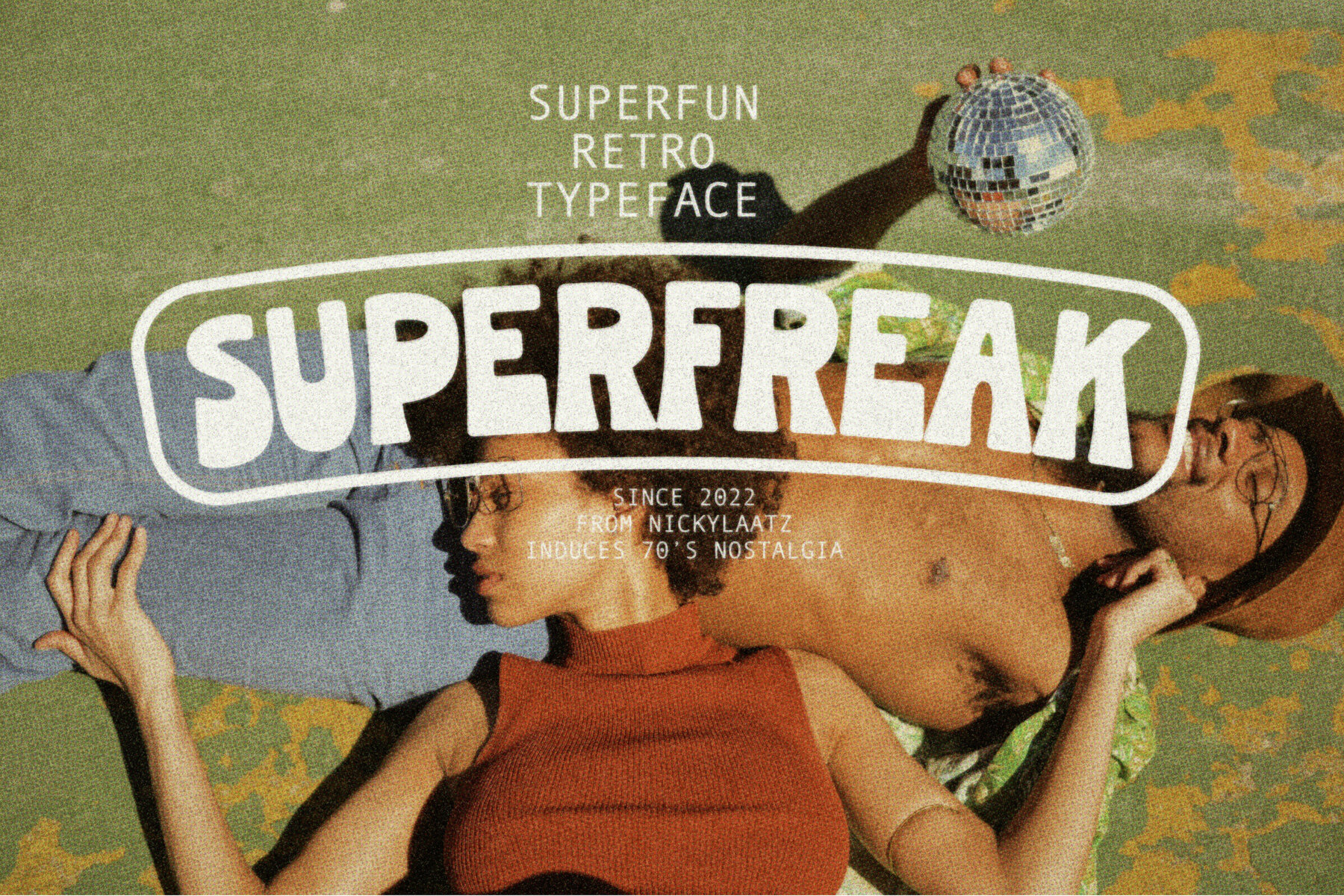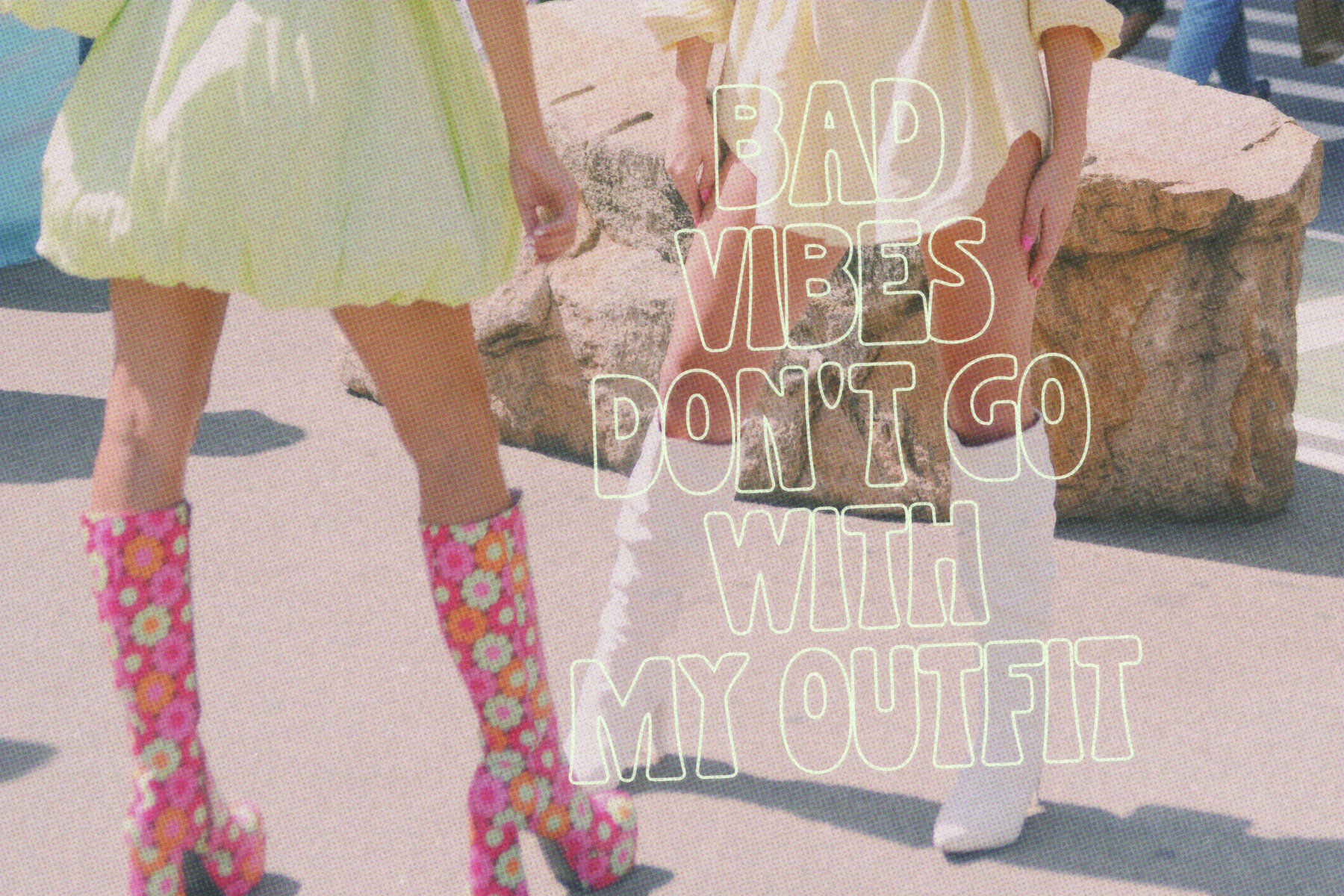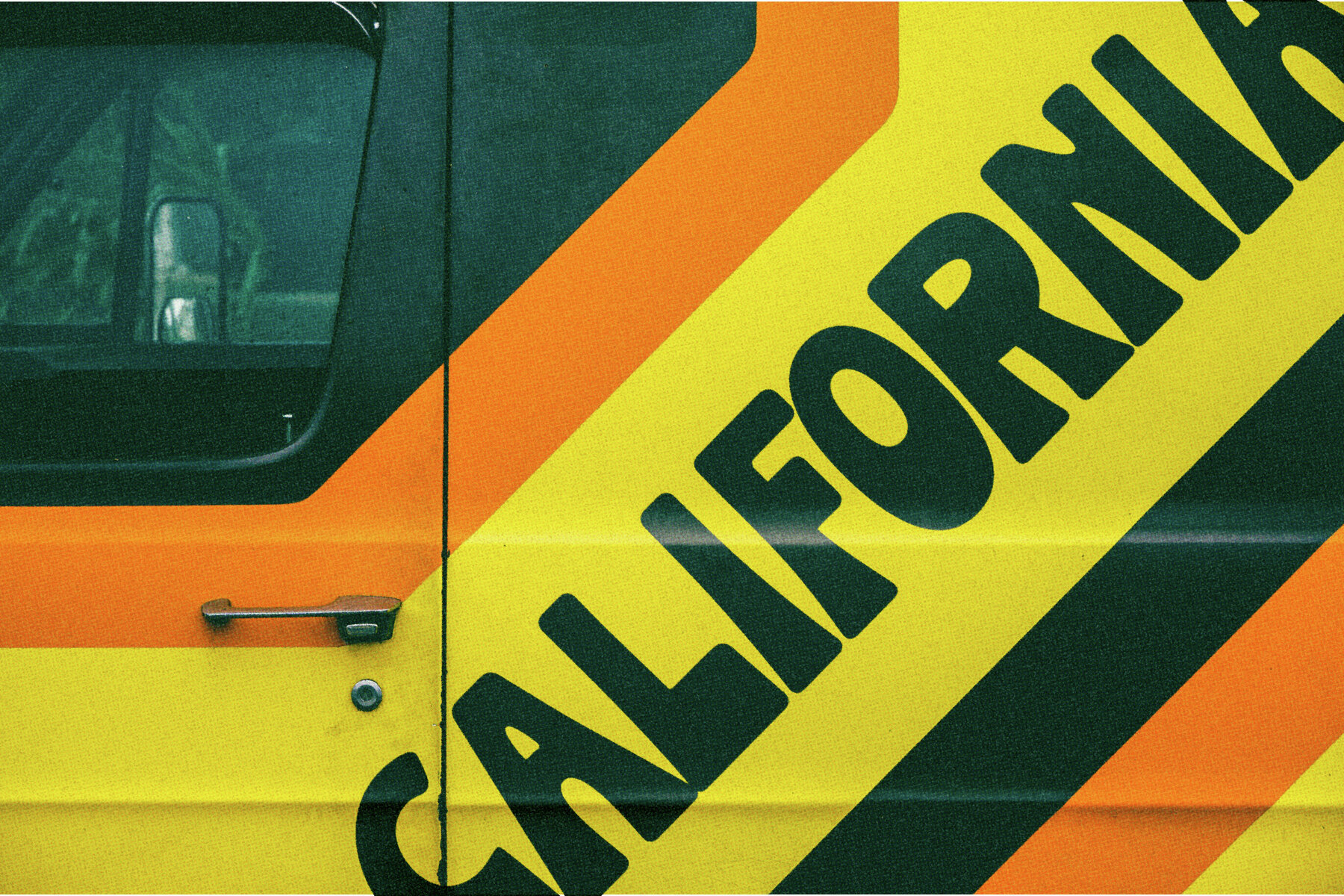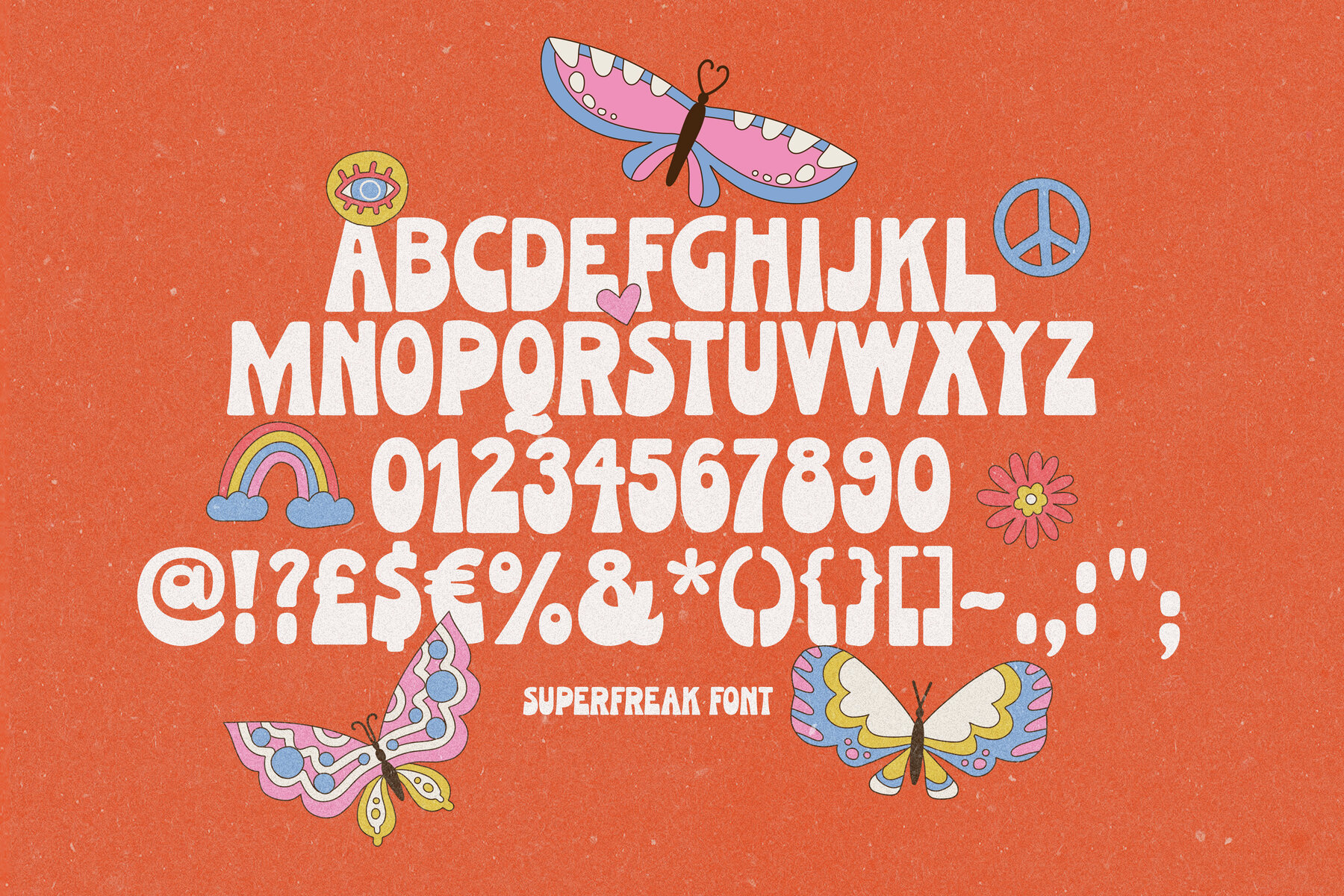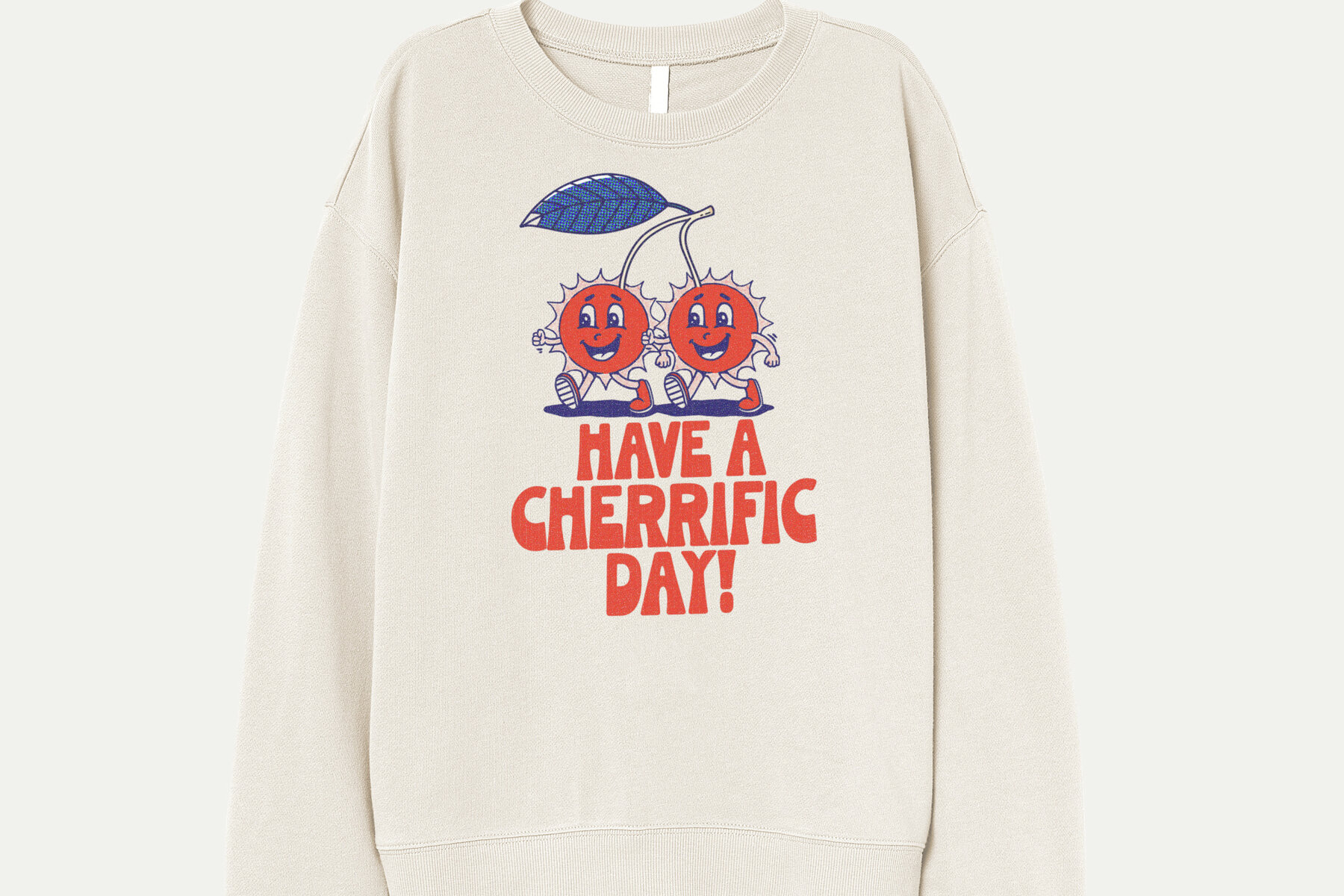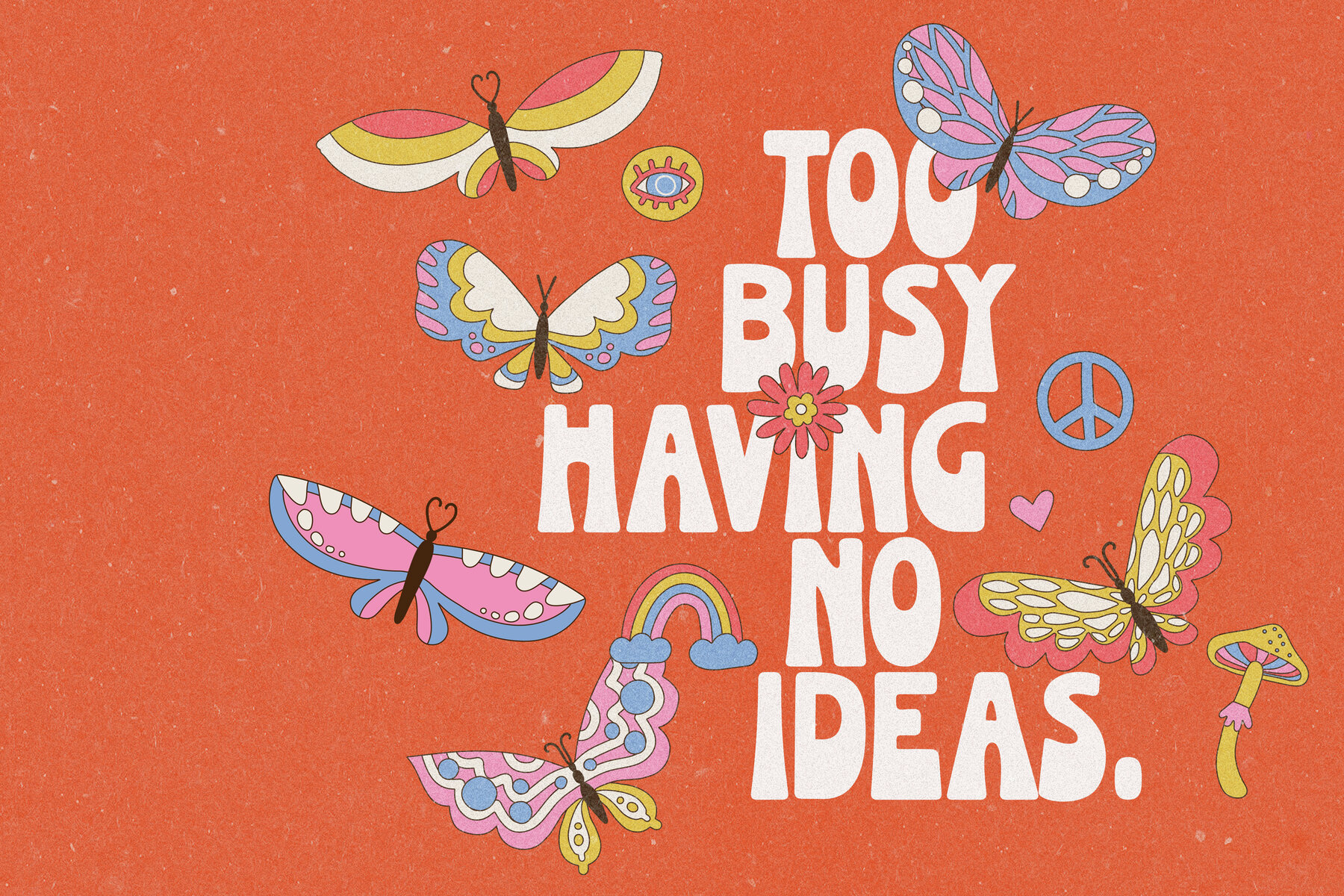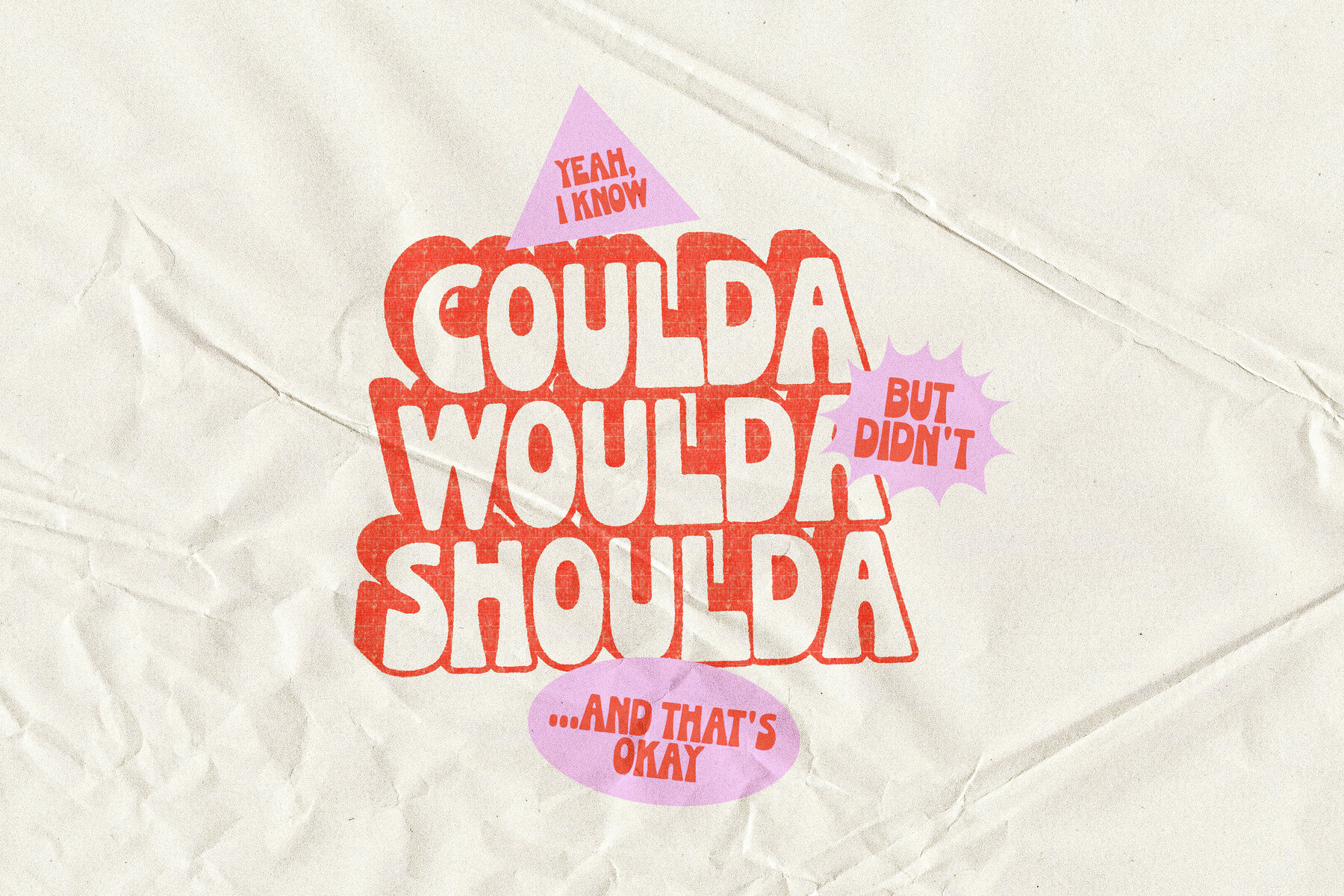
Superfreak Font
The coveted typeface, SuperFreak, masterfully designed by the prodigious Nicky Laatz, harkens back to the soulful groove of the 70's while incorporating a touch of modern aesthetic. Echoing the disco-lit, retro era, this all-caps font revitalizes your design arsenal with its undeniably captivating bellbottom feature. Beloved by progressive graphic designers and marketing firms, SuperFreak serves as an ideal typeface to infuse an element of quirky nostalgia into contemporary designs. Stand out from the crowd and seamlessly inspire your target audience with the notable '70s charm that lends itself beautifully to a multitude of digital platforms and print materials.SuperFreak Font: The Quintessential Typeface for Trendsetting Creatives